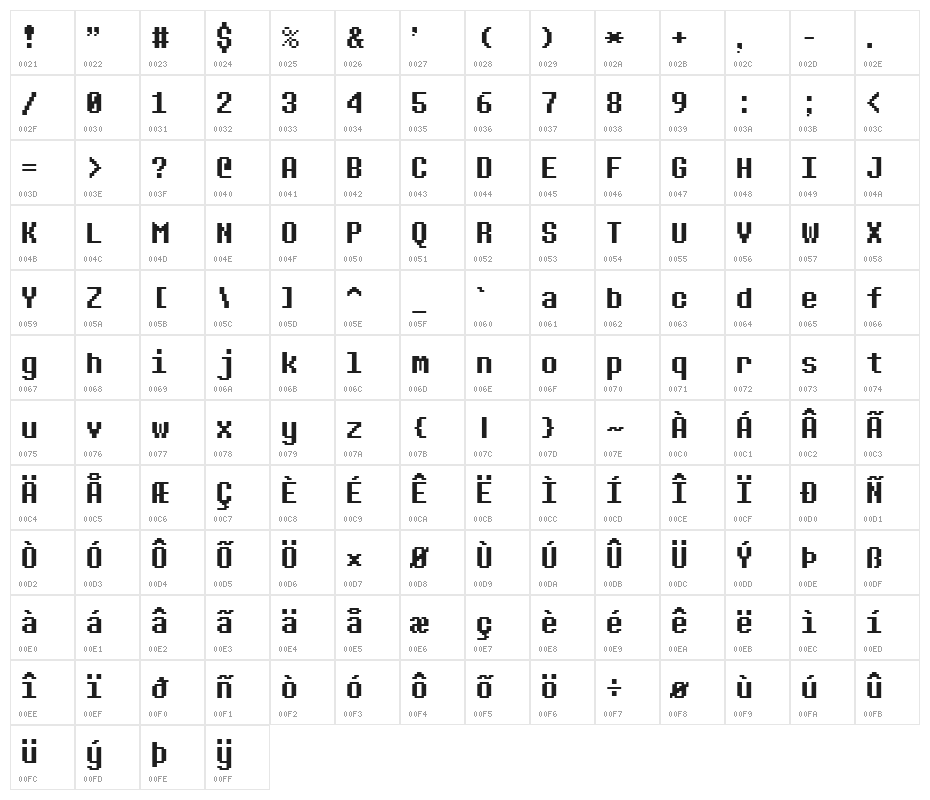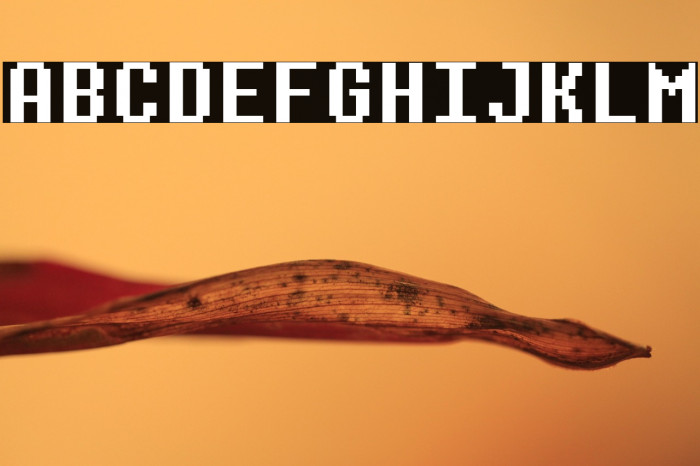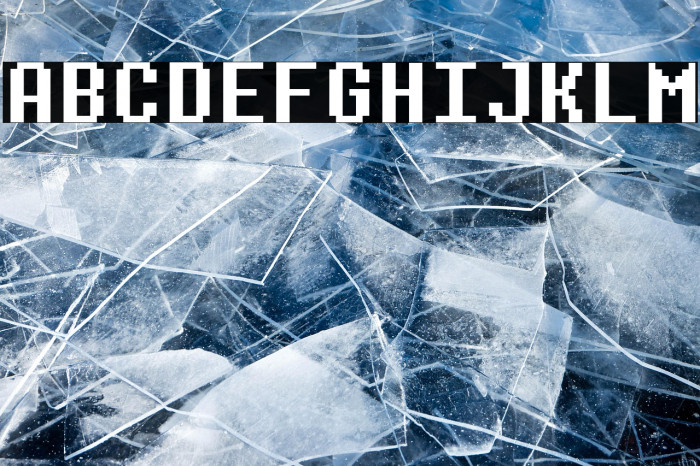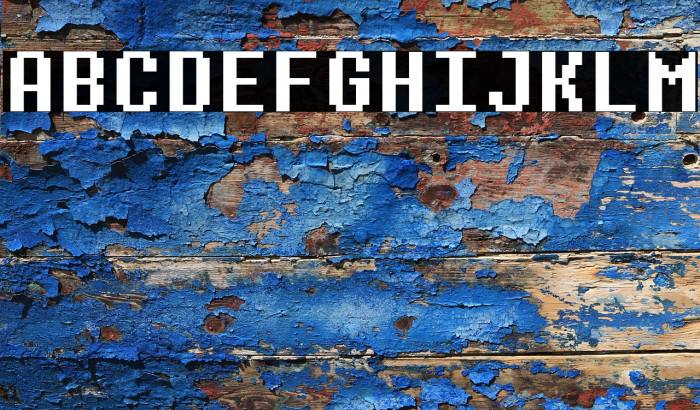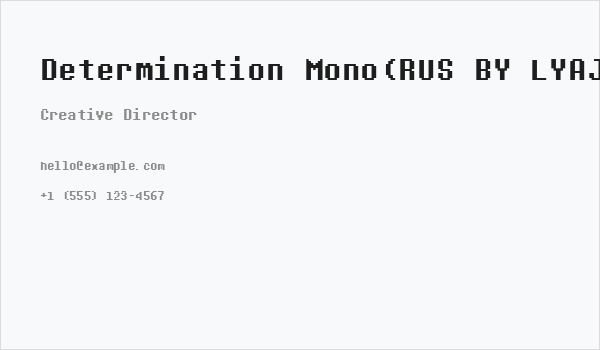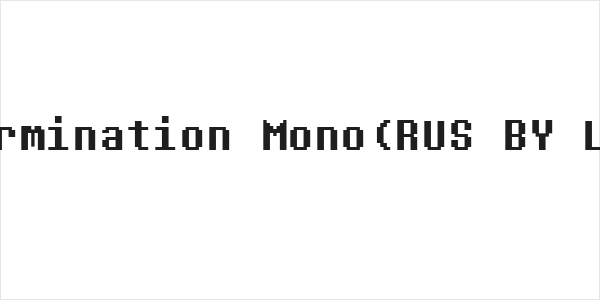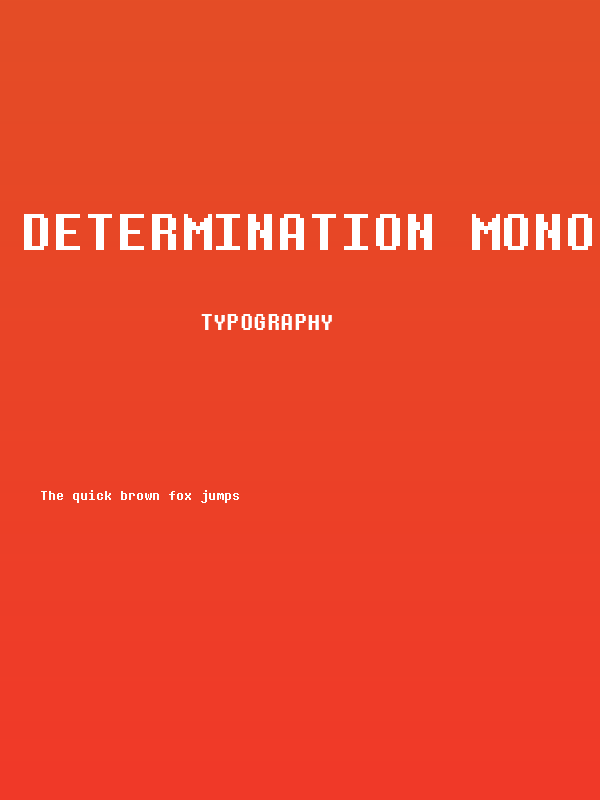
Determination Mono(RUS BY LYAJK Font
Determination Mono(RUS BY LYAJK Description
This font features a monospaced design with a distinctly pixelated, retro aesthetic reminiscent of early computer and arcade game typography. Each character is uniformly spaced, contributing to a clean and organized appearance. The uppercase and lowercase letters maintain a consistent height, enhancing readability and creating a cohesive visual flow. The numerals and special characters are crafted with the same pixelated style, ensuring uniformity across all glyphs. This font's blocky, geometric shapes evoke a sense of nostalgia, making it ideal for projects that aim to capture a vintage digital feel.
| Use Case | Logos, Digital displays, Coding environments |
| Proposed Projects | Ideal for retro-themed designs, video game graphics, coding displays, and digital art projects. |